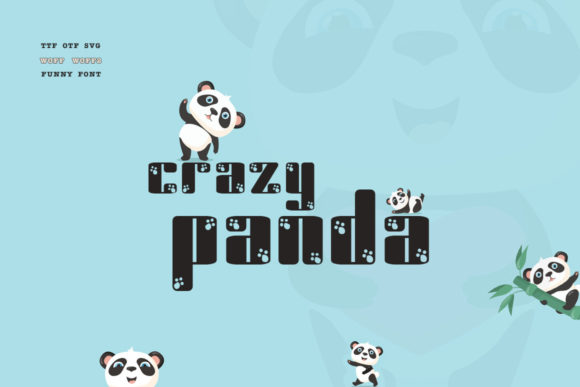
Welcome to the extraordinary world of Crazy Panda, where typography takes on a playful and delightful twist! Let your imagination run wild with this captivating font family, meticulously crafted by Design Stag. This collection offers a unique visual experience that breathes life into your designs, whether it's a whimsical children's project or an eye-catching marketing campaign.
First things first, it's not just a font, it's a story! Crazy Panda's charming little paws playfully adorn each letter, adding a touch of whimsy that speaks to your audience's emotional side. This is more than just visuals, it's a connection that resonates and leaves a lasting impression.
Designers, you'll feel like a kid in a candy shop with Crazy Panda. Its joyful, free-spirited nature will inspire you to create works of art that are both visually stunning and emotionally engaging. From children's books with vibrant characters to vibrant posters that make you smile, this font will bring your ideas to life like never before.
But wait, there's more! Crazy Panda is not just a one-trick pony. With its highly readable and versatile style, it's the perfect choice for a wide range of projects. Need to design a school project that captures your child's personality? Done! How about creating a greeting card that makes your loved ones giggle with delight? Easy as pie!
Dive into the world of Crazy Panda and let your creativity soar to new heights. This font family is a game-changer, an emotional powerhouse that will ignite your designs with personality and authenticity. Transform your projects into unforgettable experiences with Crazy Panda; the font that's more than just a font, it's a celebration.